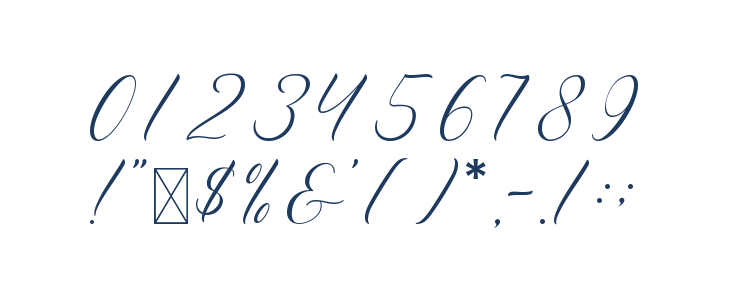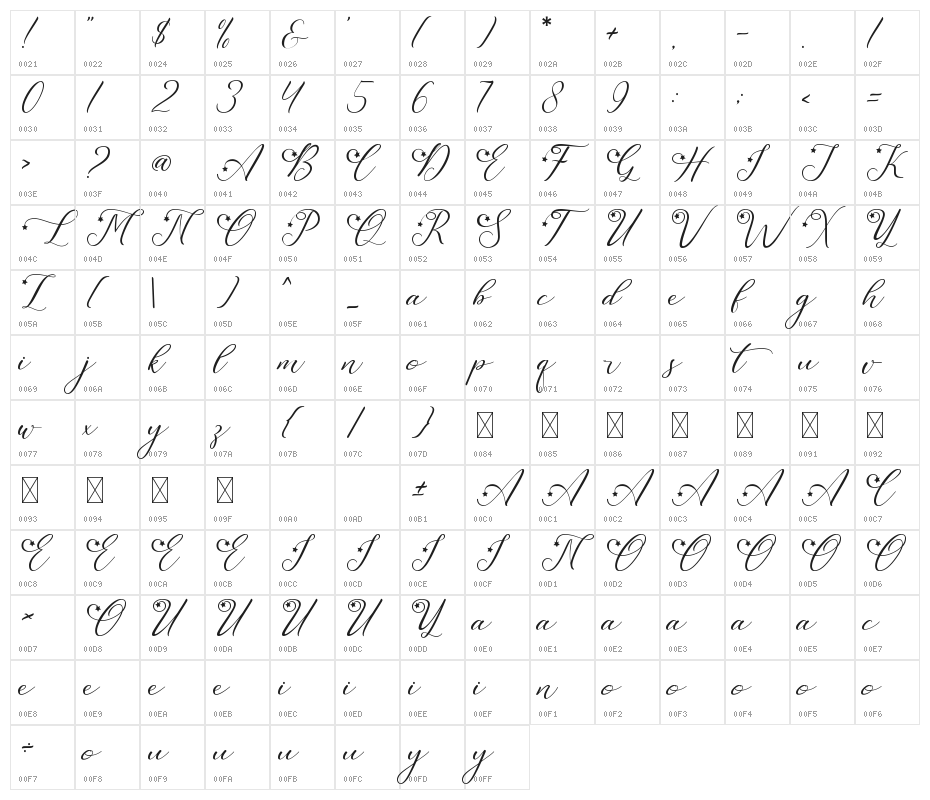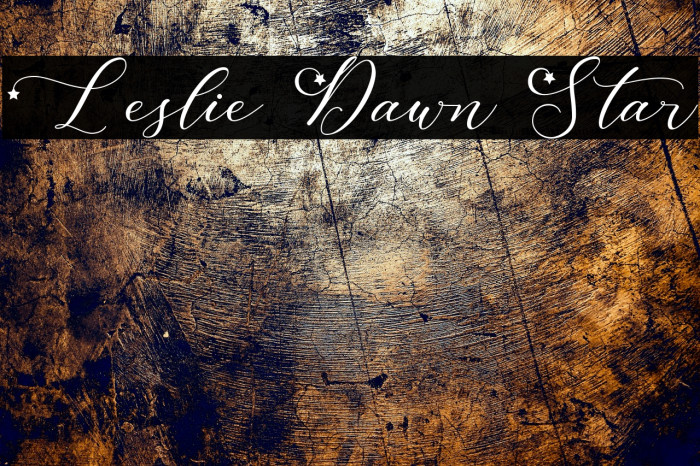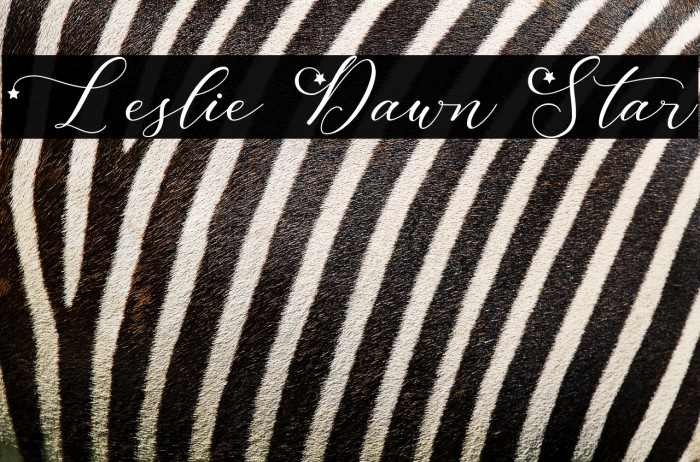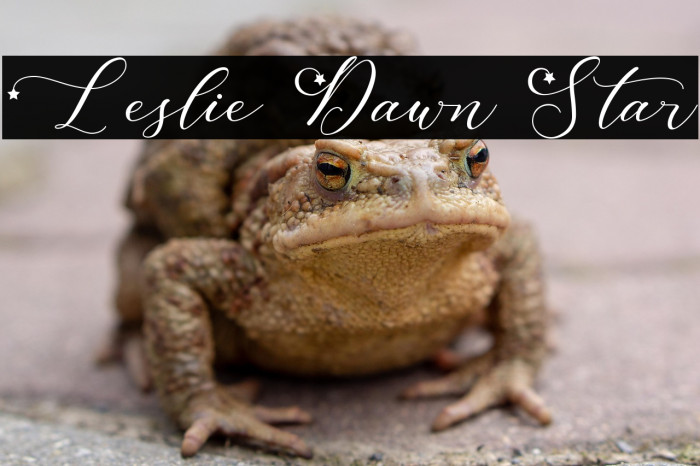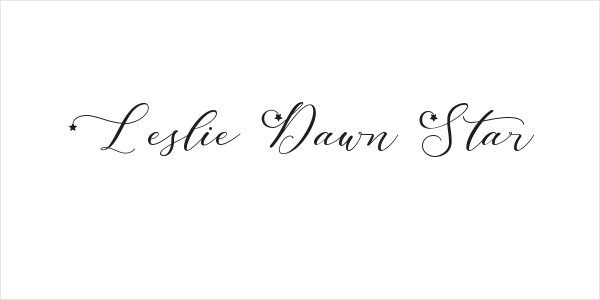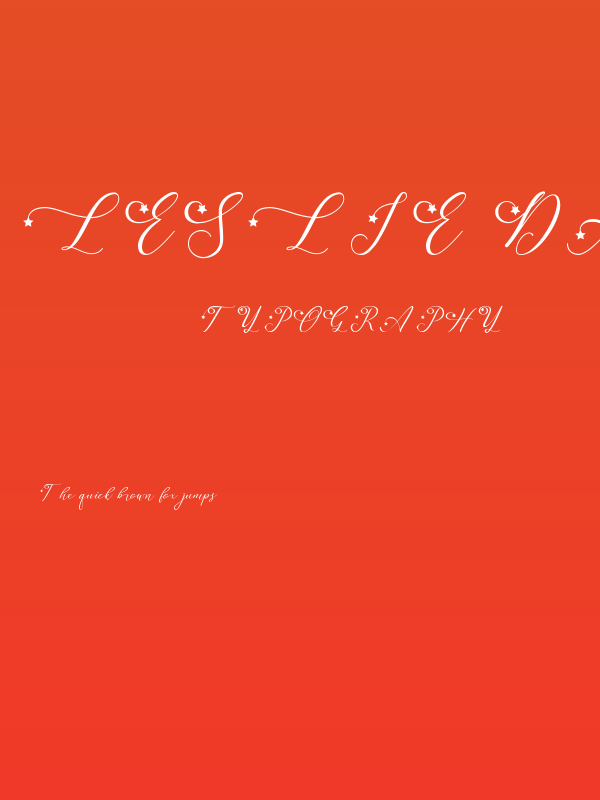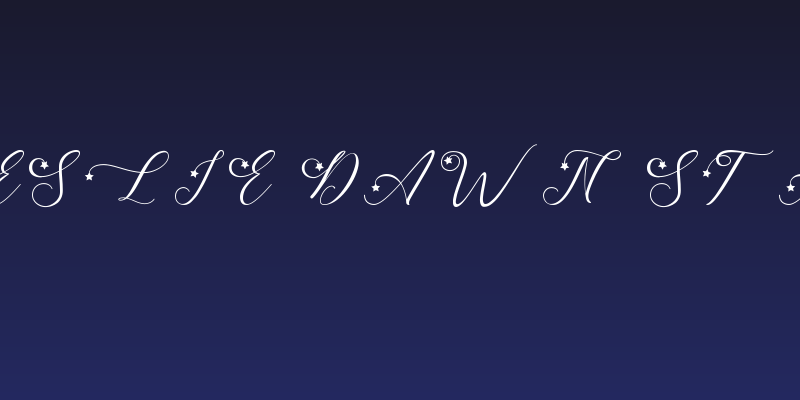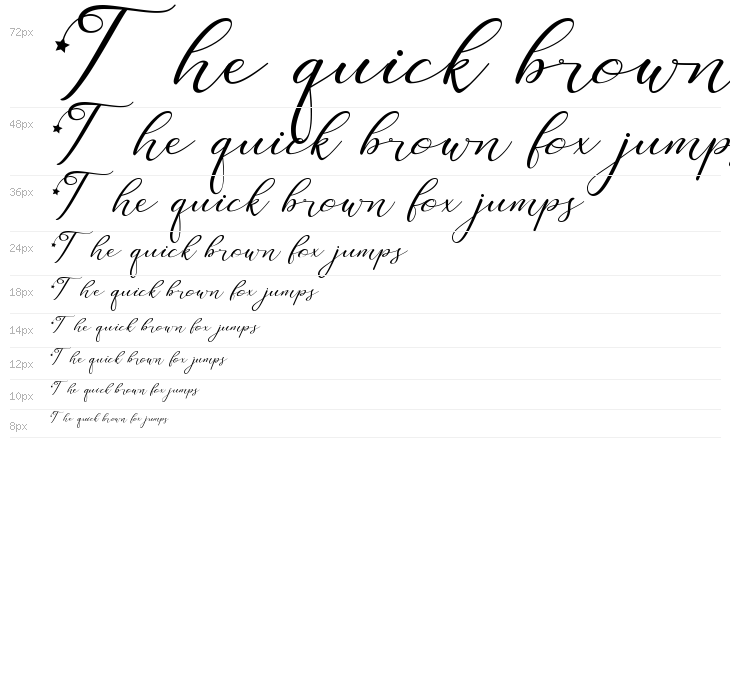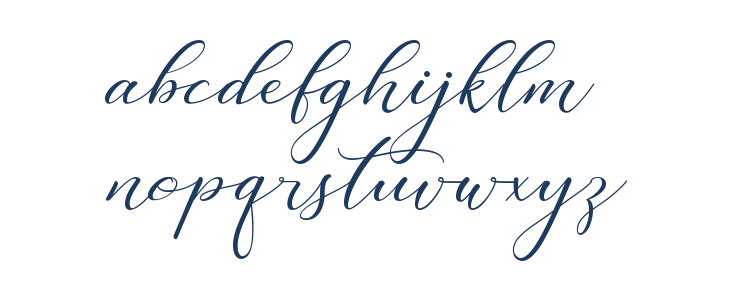
Leslie Dawn Star Font
Leslie Dawn Star Description
This elegant script font features a flowing, cursive style with delicate swashes and flourishes. The uppercase letters are adorned with small star-like embellishments, adding a whimsical touch. The lowercase letters maintain a smooth, connected appearance, enhancing readability while retaining a sophisticated look. The numerals and special characters are crafted with the same attention to detail, ensuring consistency across all glyphs. This font exudes a sense of grace and charm, making it ideal for projects that require a touch of elegance.
| Proposed Projects | Ideal for wedding invitations, elegant branding, greeting cards, and high-end product packaging. |